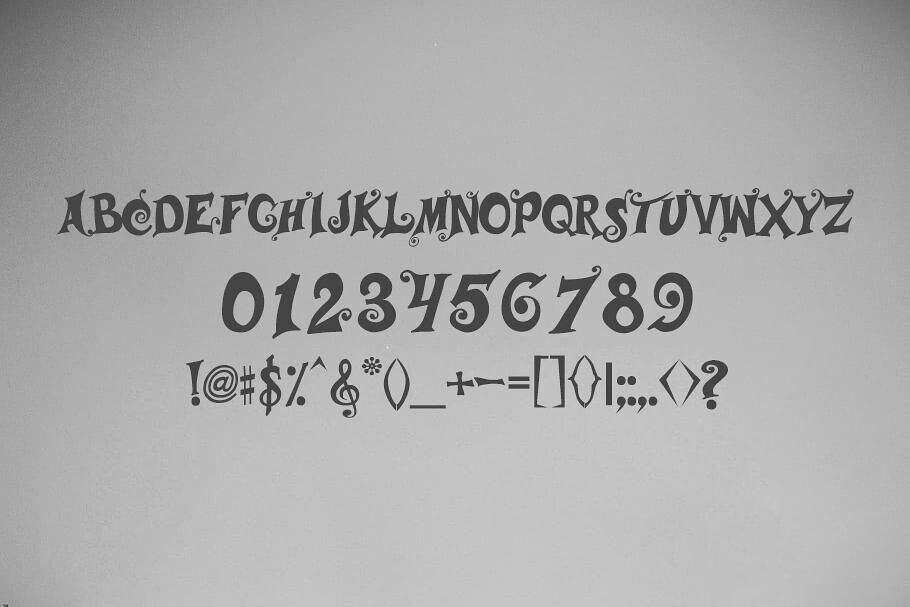
Musicals Font is a captivating typeface that embodies the energy of musical theater. Featuring bold, sweeping lines and theatrical flair, it’s perfect for posters, titles, or any project needing a dramatic touch. Inspired by the glitz of stage productions, it blends elegance with playfulness, offering a distinctive style for creative designs.